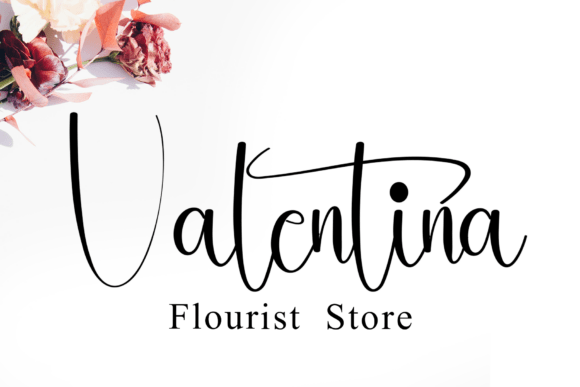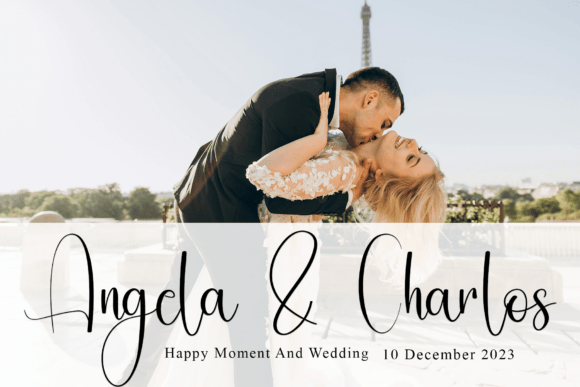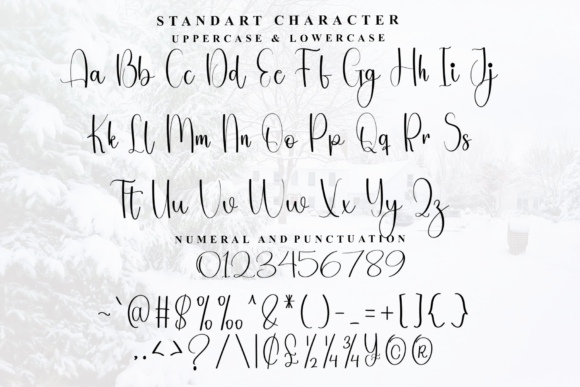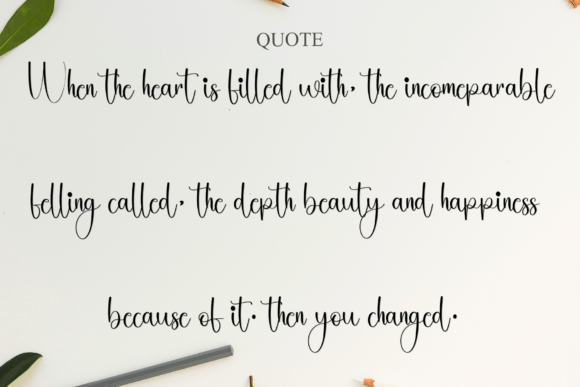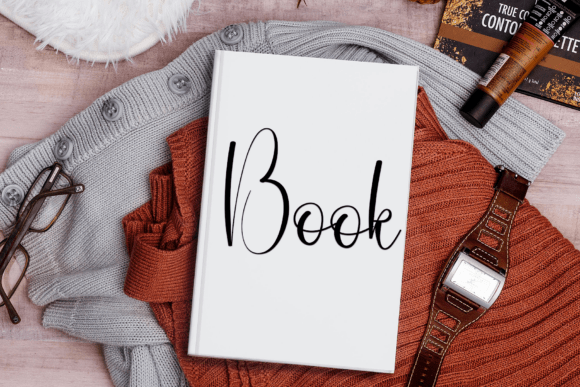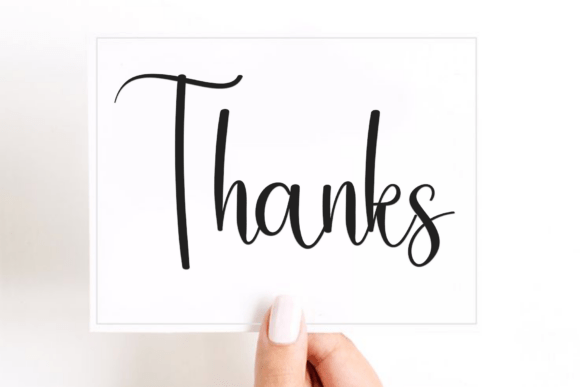
Discover the Charm of Downtown Font: Elevate Your Designs with its Unique Touch
In the world of typography, fonts play a crucial role in making or breaking a design. A well-chosen font can elevate your creative project, making it more engaging and memorable for your audience. If you’re a designer, crafter, or simply someone who appreciates the art of typography, you’re in for a treat. Introducing Downtown Font, a beautiful and eye-catching typeface that is sure to capture your heart. With its soft, unique touch and distinctive strokes, Downtown Font is the perfect addition to your design arsenal.
The Beauty of Downtown Font
Downtown Font is a masterfully designed font that boasts a soft, unique touch. Its gentle curves and lines give it a special character, making it stand out from more traditional fonts. The distinctive strokes of Downtown Font are what truly set it apart, adding a touch of elegance and sophistication to any design. Whether you’re working on a logo, a poster, or a digital project, Downtown Font is sure to make it shine.
One of the best things about Downtown Font is its versatility. With a wide range of characters, you can use it for a variety of design projects, crafts, and other creative works. From invitations and greeting cards to social media graphics and website headers, Downtown Font is the perfect choice. Its unique style is sure to appeal to a wide range of audiences, making it an excellent addition to your font collection.
With Downtown Font, the design possibilities are endless. Use it to create stunning visual content for your social media channels, or to add a touch of elegance to your website. You can also use it for crafting projects, such as making handmade cards or gift tags. The natural font style of Downtown Font makes it perfect for a wide range of products, from logos and branding materials to packaging and advertising.
Why Choose Downtown Font?
So, why choose Downtown Font over other fonts? Here are just a few reasons:
- Unique Style: Downtown Font has a distinctive style that sets it apart from other fonts.
- Versatility: Use it for a wide range of design projects, crafts, and other creative works.
- Elegant and Sophisticated: Adds a touch of elegance and sophistication to any design.
In conclusion, Downtown Font is a beautiful and eye-catching font that is sure to elevate your designs. With its soft, unique touch and distinctive strokes, it’s the perfect addition to your font collection. Whether you’re a designer, crafter, or simply someone who appreciates the art of typography, Downtown Font is a must-have. So why wait? Download Downtown Font today and discover the charm of this stunning typeface for yourself.
Whether you’re working on a personal project or a client’s, Downtown Font is sure to make it shine. Its versatility, compatibility, and unique style make it an excellent choice for a wide range of design projects. So, take your designs to the next level with Downtown Font. Get creative, have fun, and let this beautiful font inspire you to new heights!